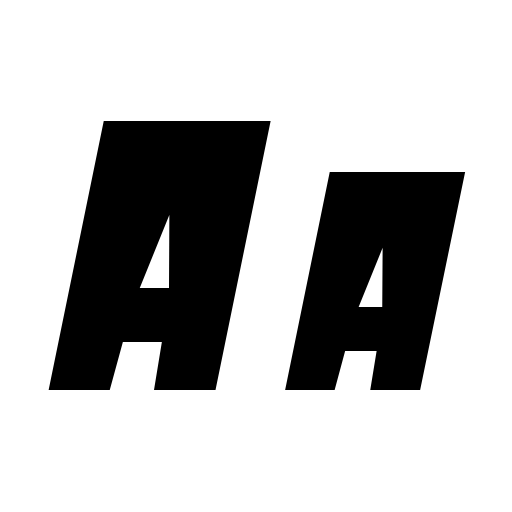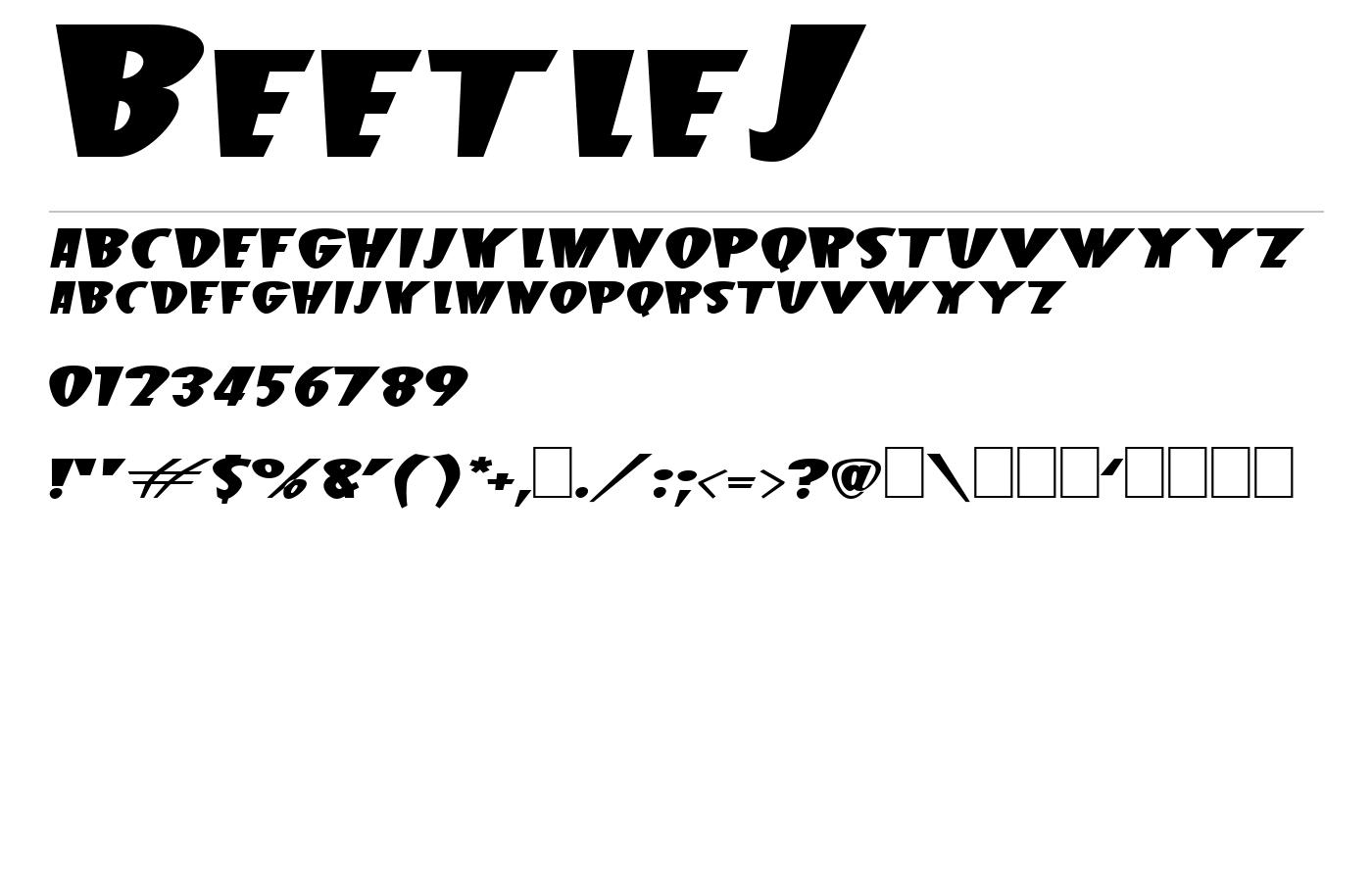
BeetleJ is a bold, playful sans serif font with a strong, dynamic presence created by its angled strokes and exaggerated letterforms. Its heavy weight and condensed style give it energetic and eye-catching qualities, making it perfect for fun, informal branding, posters, and headlines where personality and impact are key. This font's distinct, quirky shapes lend a lively, almost cartoonish vibe that works well in creative and youthful design projects.
BeetleJ Font
About BeetleJ Font